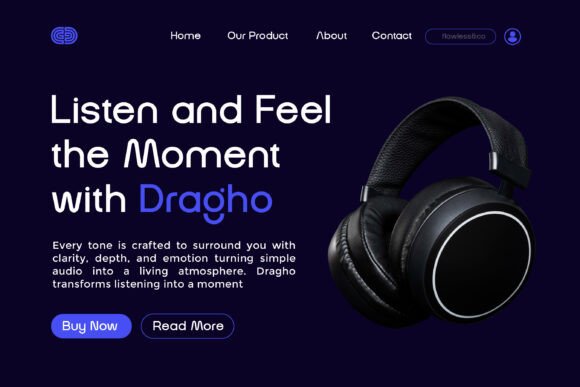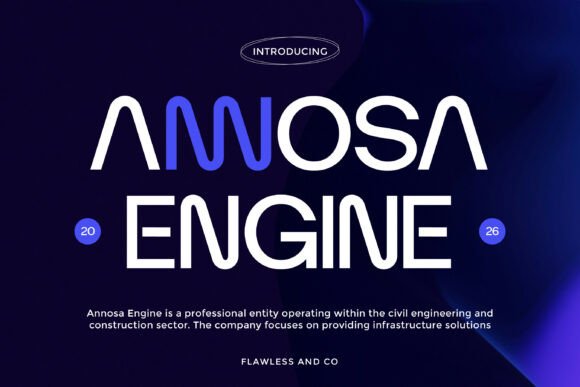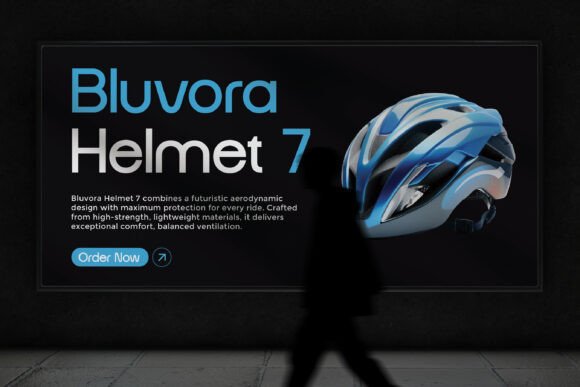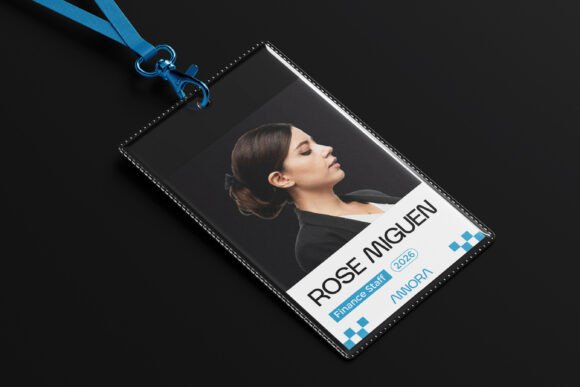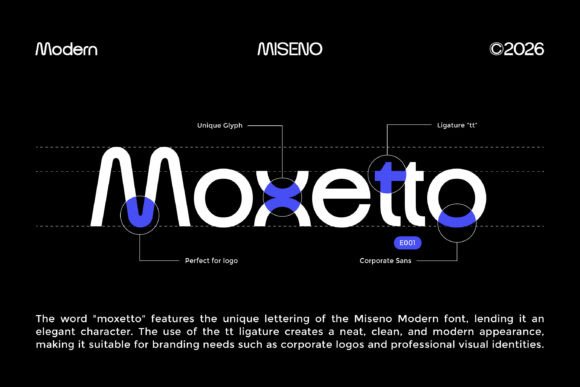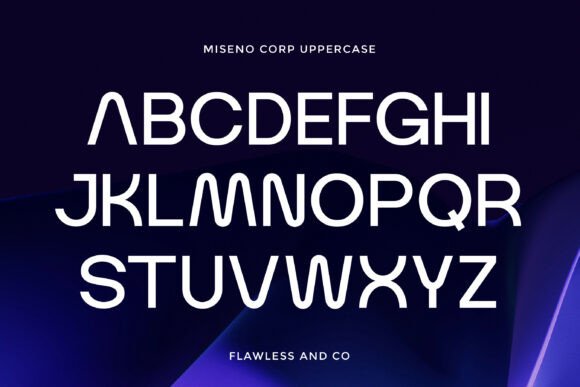
Introduction to Miseno Font
You know that feeling when you’re working on a creative project and the right font can make all the difference? It’s like finding the missing piece of a puzzle – everything falls into place, and your design comes alive. That’s exactly what happens when you use the Miseno Font. This modern minimalist corporate sans serif font is designed to deliver clarity, professionalism, and contemporary elegance.
Whether you’re working on a high-profile business project or a personal design initiative, the Miseno Font is an invaluable resource. Its clean lines, balanced proportions, and refined letterforms create a sleek typographic style that perfectly fits modern business and corporate design needs. With its high-quality design, you can trust that your work will stand out in the best possible way. And the best part? You can download it for free, making it an accessible design resource for any creative project.
As a designer, you know how crucial it is to have a reliable design tool that can elevate your work. The Miseno Font is that tool, offering a transparent background and a versatile style that adapts to any creative context. With the Miseno Font, you can create stunning visuals that convey your message with clarity and sophistication.
Miseno Font Key Features
- Features a transparent background, allowing for seamless integration into designs
- Designed with a clean and modern aesthetic, making it perfect for various design applications
- Part of a larger font family, offering versatility and flexibility for designers
Honest Review: Miseno Font
I recently stumbled upon the Miseno Font while searching for a free download to enhance my design project. As a designer, I’m always on the lookout for high-quality fonts that can elevate my creative work.
What works well about the Miseno Font is its modern and sleek design. It’s perfect for projects that require a clean and minimalist aesthetic. The font is also available for free download, making it an excellent design resource for designers on a budget.
- ✨ Modern and sleek design
- ✨ Perfect for minimalist and clean designs
- ✨ Transparent background makes it easy to work with
However, I did encounter some limitations with the Miseno Font. The font family is relatively small, and it may not be suitable for projects that require multiple font styles. Additionally, the font may not be compatible with all operating systems.
- ⚠️ Limited font family
Overall, I’m impressed with the Miseno Font. While it may have some limitations, it’s a great design resource for designers who are looking for a high-quality, free font. With its modern design and transparent background, it’s perfect for a variety of creative projects.
Miseno Font
Miseno Font is a high-quality design resource perfect for any creative project. You can download it for free to elevate your designs. This font is ideal for projects that require a touch of sophistication and elegance.
Tips for Getting the Most Out of Miseno Font
For the best results, use Miseno Font on a transparent background to make it stand out. You can also experiment with different font sizes and combinations to create unique designs.
Miseno Font is perfect for:
- Designing business cards and letterheads
- Creating social media graphics and posts
- Developing branding materials and logos